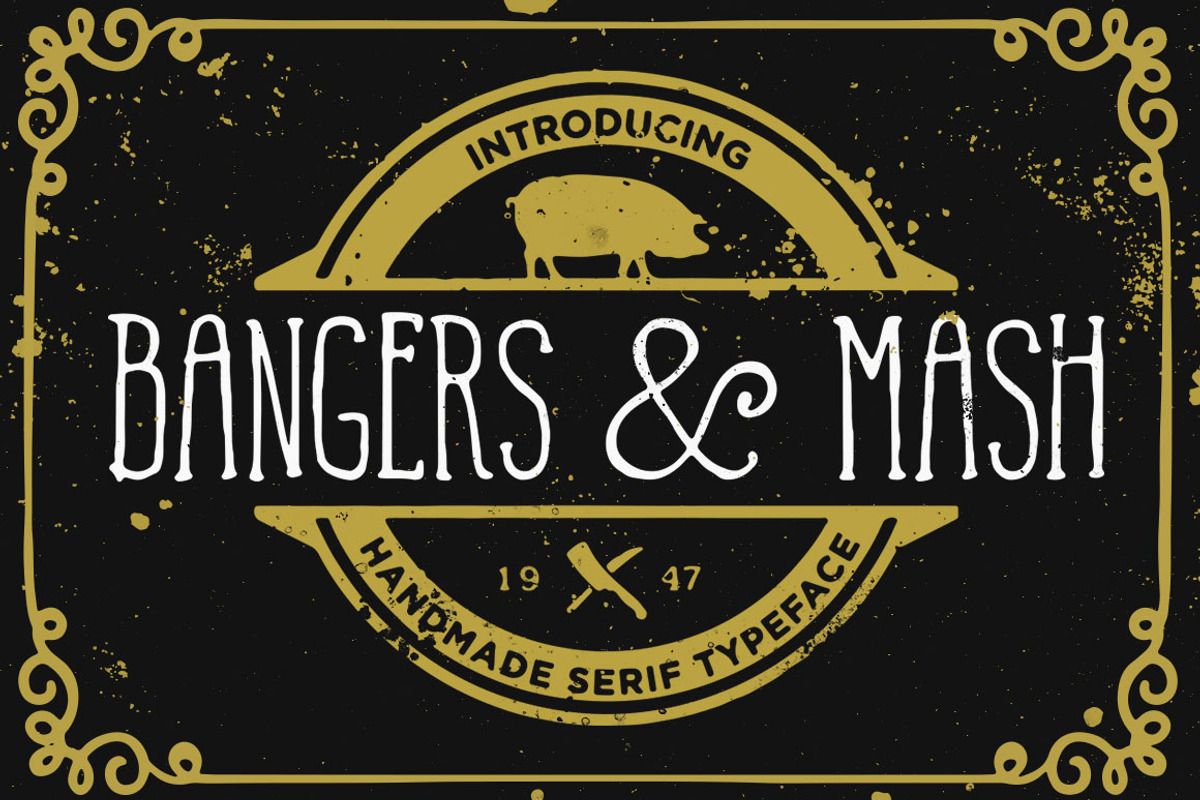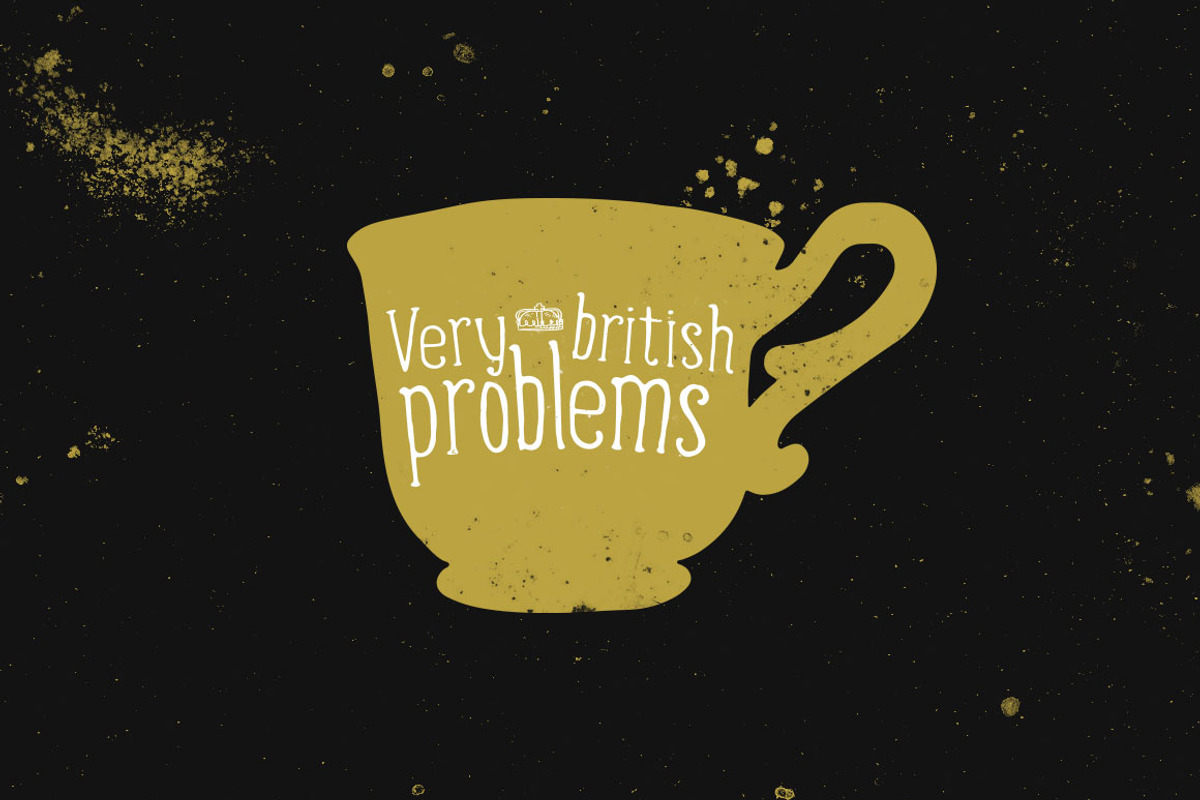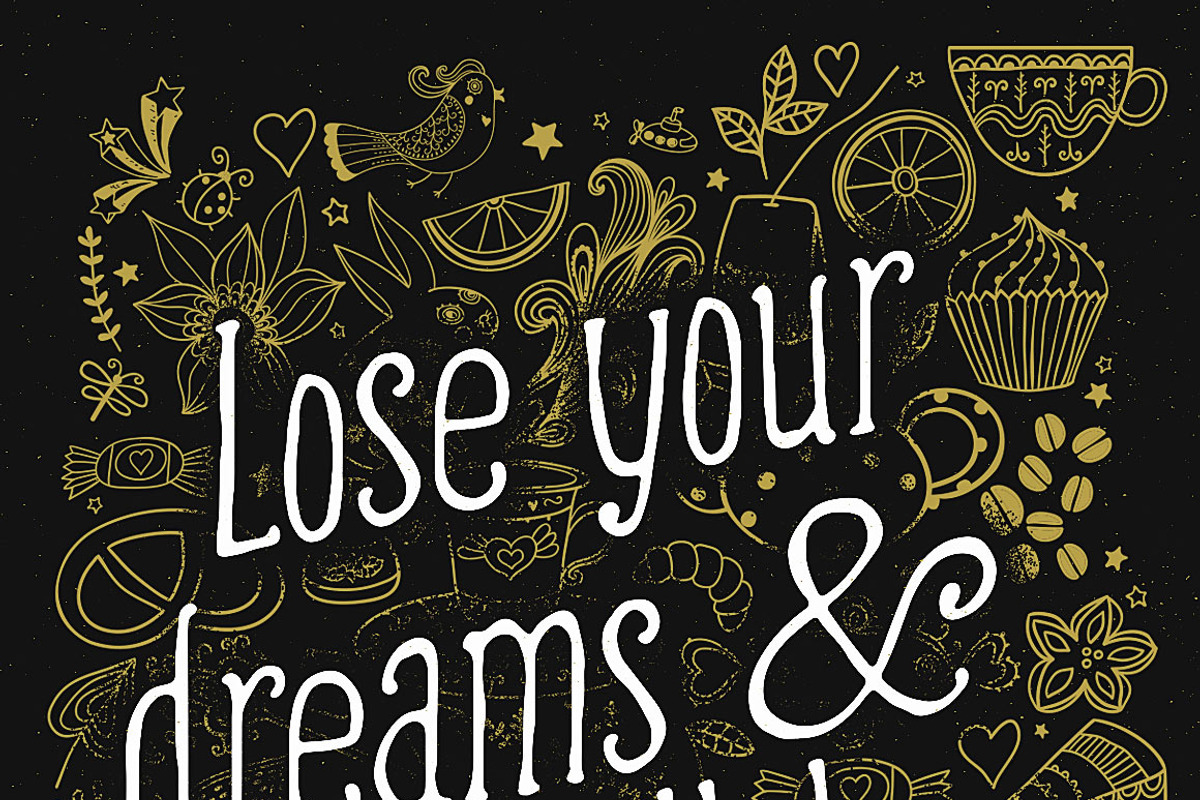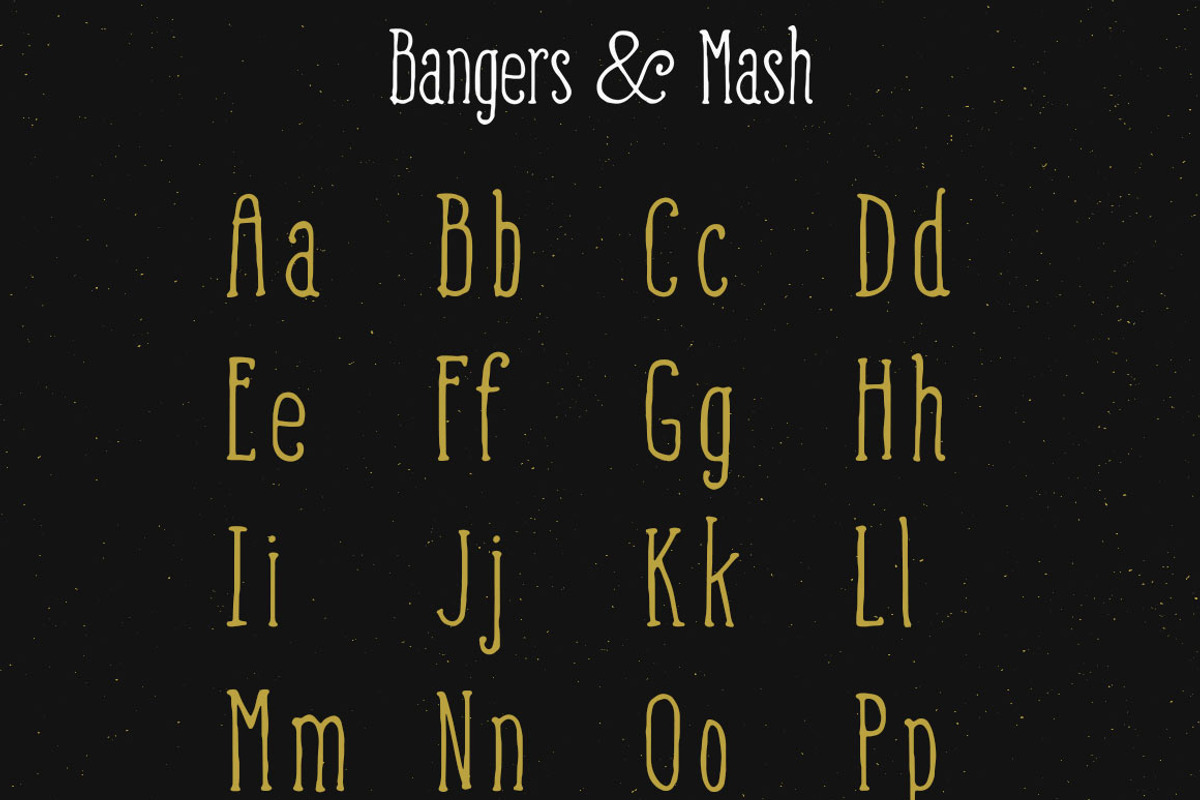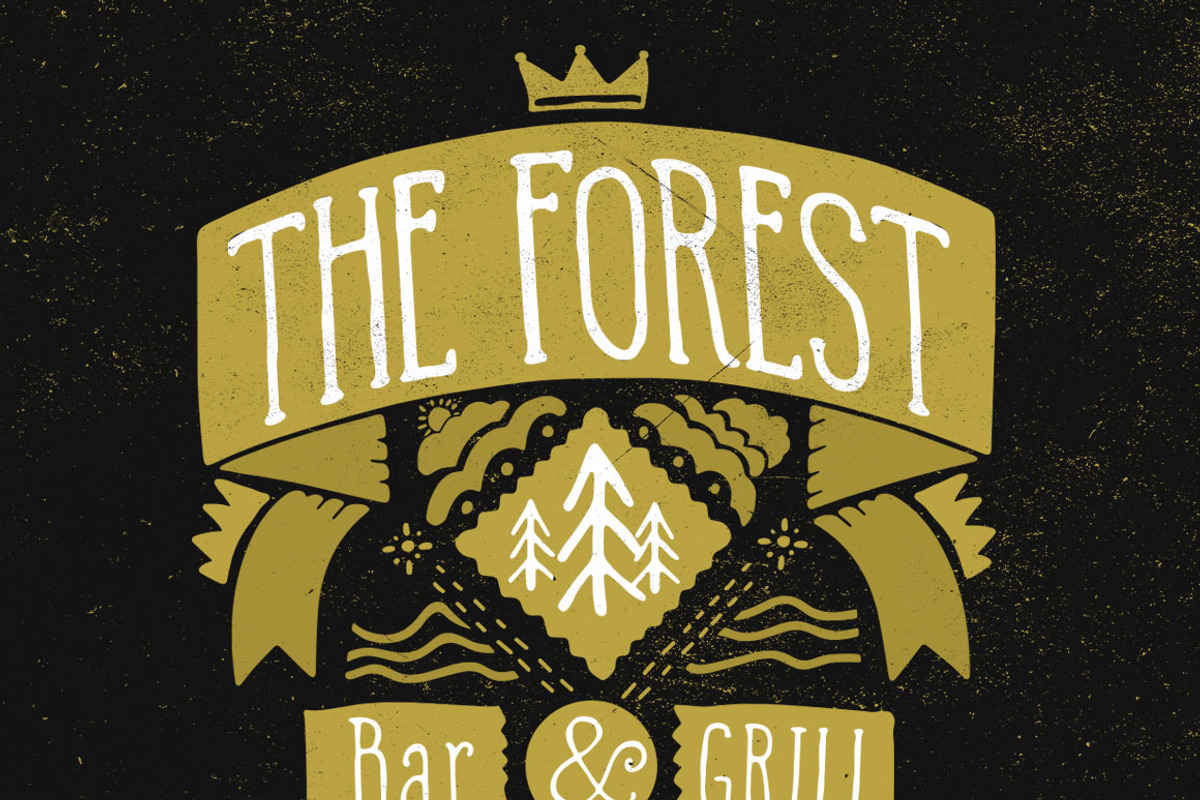
Serif font Bangers and Mash
Bangers and Mash is my new handmade serif font. I named it after the great British institution that is Bangers ‘n’ Mash, also known as sausages and mash.
Bangers and Mash font usage
Bangers and Mash is a cheeky little beast, it's loose and lively. It trips along the baseline without a care in the world.
The tiny decorative serifs give it a nostalgic and quirky feeling.
Bangers and Mash would be great for branding, invitations, and other fun design projects requiring a quirky handcrafted feel.
- Upper and lowercase
- Punctuation & Symbols